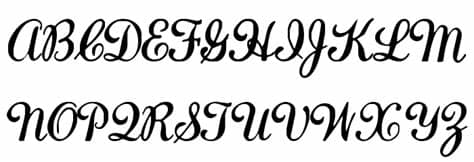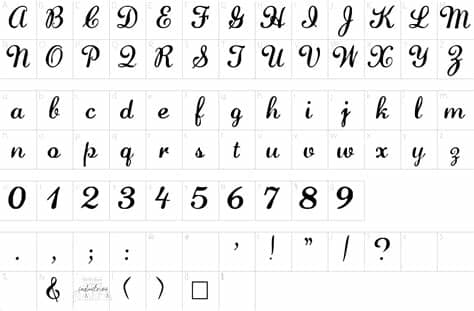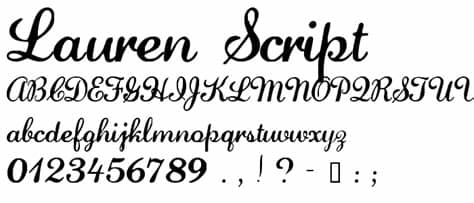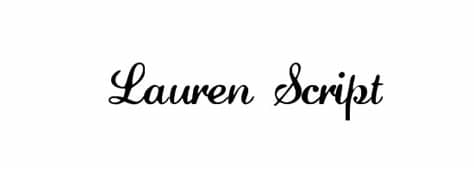
Font Lauren Script Acentuada : Lauren Script Free Font / Thank to medialab shared this beautiful.. Fontsc.com is formed in the spirit of for fonts, where creative ideas meet beautiful designs as we all know great designs last forever! Lauren script is a script type font that can be used on any device such as pc, mac, linux, ios and android. Good news, i am very pleased to introduce to you the amazing fonts, lauren font designed by medialab. Digital font data copyright (c)1995 weatherly systems, inc. Uploaded by zemin (1 styles).
Lauren script font contains 106 defined characters and 84 unique glyphs.
Uploaded by zemin (1 styles). Dafont free is a collaboration of free high quality fonts including basic, script, handmade, calligraphy, fancy, display, gothic and more. This font come in ttf format and support 106 glyphs. Lauren script font is a script, calligraphy font designed by denada industries. Lauren is free for personal use, you ccanf a commercial license, please purchase the font in his shop. Very suitable for greeting cards, branding materials, business cards, quotes, posters, and more! Altsys fontographer 4.0.3 24.05.1994 rating: Скачать шрифт lauren script без регистрации, прамая ссылка на шрифт lauren script.ttf, версия altsys fontographer 4.0.3 24.05.1994, размер файла 29.03 кбайт. Copyright 1992 by mike allard for de nada industries.generated by fontographer 3.5 style: Download the lauren script font by de nada industries. Lauren script font available in ttf format for you to download. Lauren script font download is available free from fontget. Good news, i am very pleased to introduce to you the amazing fonts, lauren font designed by medialab.
The lauren script font has been downloaded 86,900 times. Dafont free is a collaboration of free high quality fonts including basic, script, handmade, calligraphy, fancy, display, gothic and more. Please research the license information before using it. Lauren script font is a script, calligraphy font designed by denada industries. Lauren script font family designed by unknown designer has a total of 1 different styles.
This font come in ttf format and support 106 glyphs. Lauren script font family designed by unknown designer has a total of 1 different styles. Uploaded by zemin (1 styles). Download lauren script otf font for windows and mac to fit your graphic designs. Free download of lauren script font. Lauren script font is script font which is designed by denada industries. Lauren script is a script type font that can be used on any device such as pc, mac, linux, ios and android. Thank to medialab shared this beautiful. Good news, i am very pleased to introduce to you the amazing fonts, lauren font designed by medialab. Altsys fontographer 4.0.3 24.05.1994 postscript font name. Laurenscript font is one of lauren script font variant which has regular style. Lauren script font contains 106 defined characters and 84 unique glyphs. Lauren script font is a script, calligraphy font designed by denada industries.